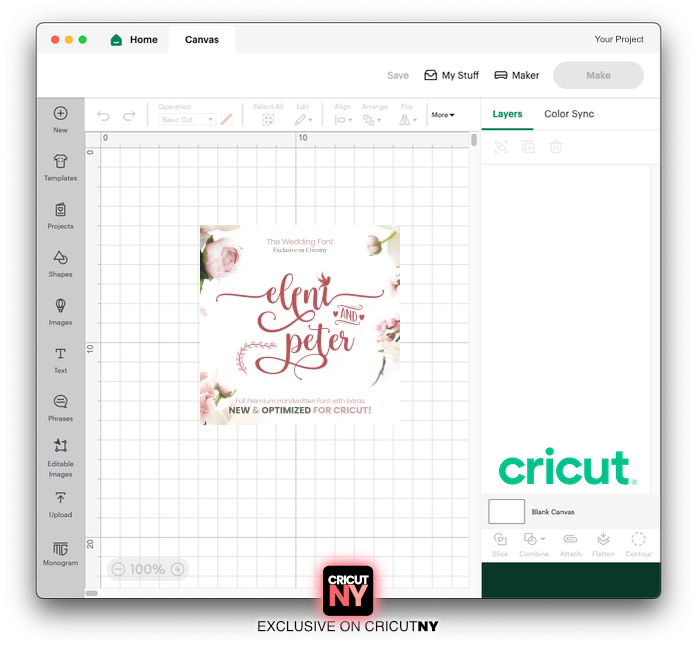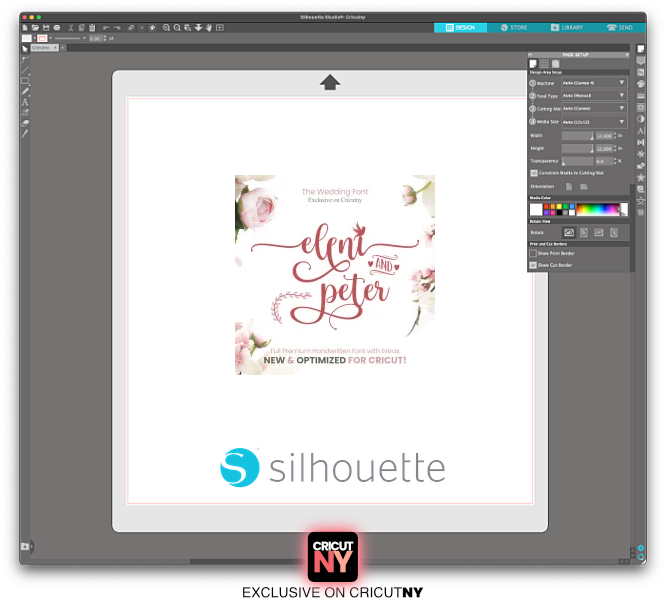
A Beautiful Wedding calligraphy font
One of the best fonts to create wedding invitations, save the date and wedding signs.
This font includes all the long tail letters with some extra unique tails. On top of that, to push your creativity to the next level, you will find a bundle of 52 super cute illustrations, as seen in the image above with the “And” and the “Flower ornament.” These illustrations can be displayed by selecting the font and typing on your keyboard. This is very easy to use.
Considered as an elegant wedding font, I must admit that the more I worked on this font, the deeper I felt the romanticism coming out from the font. This is a true calligraphy wedding font that should be used for your wedding invitation.
• The font is compatible with French and Spanish accents.